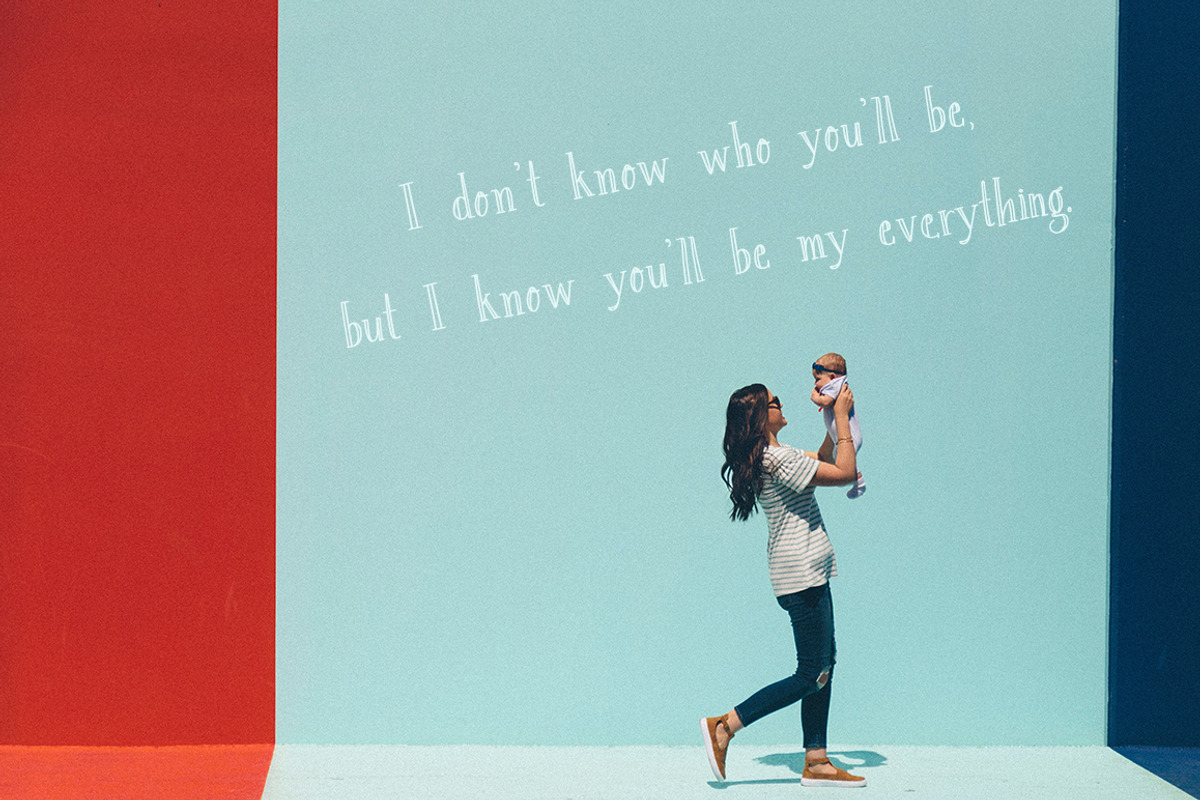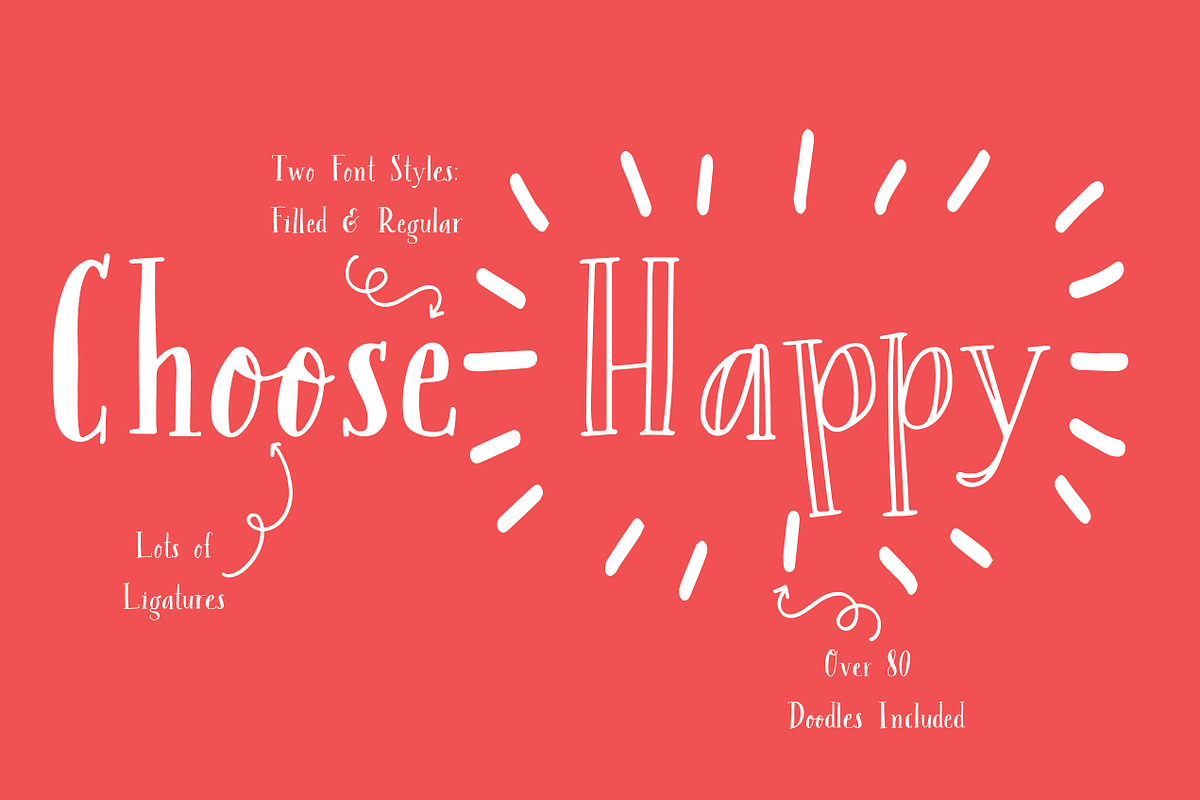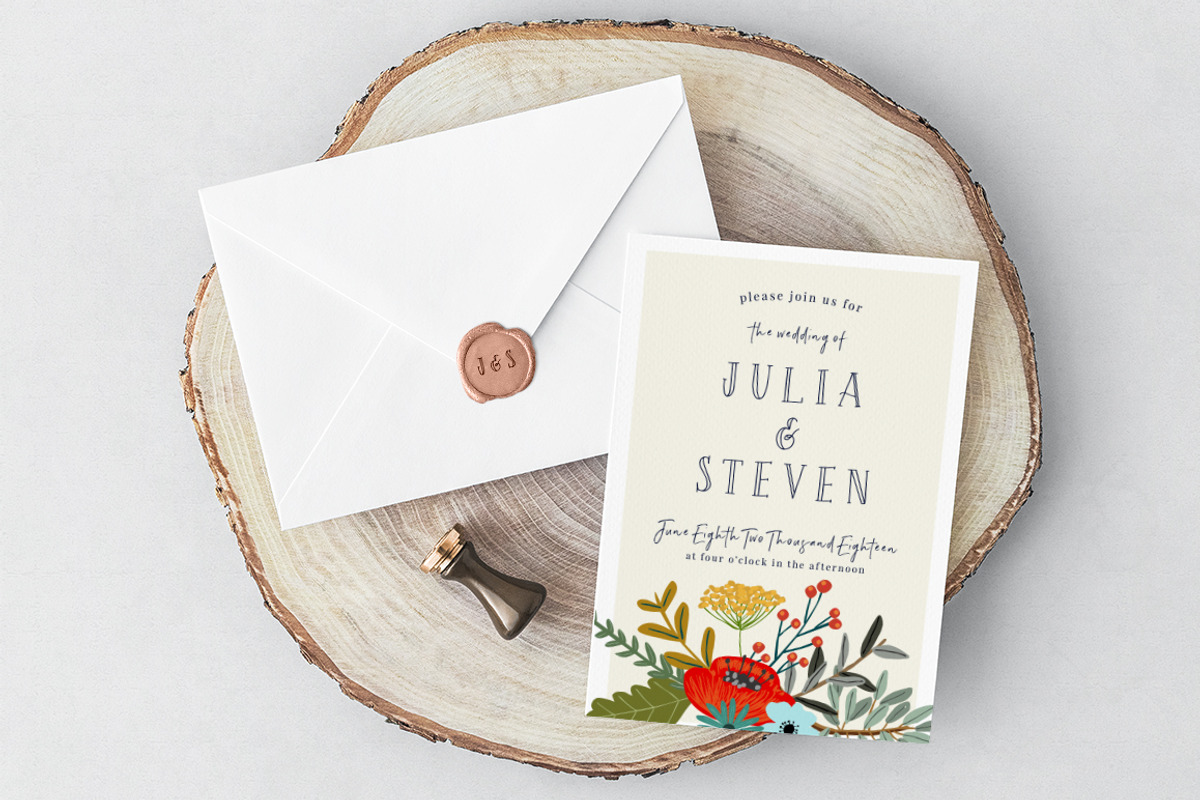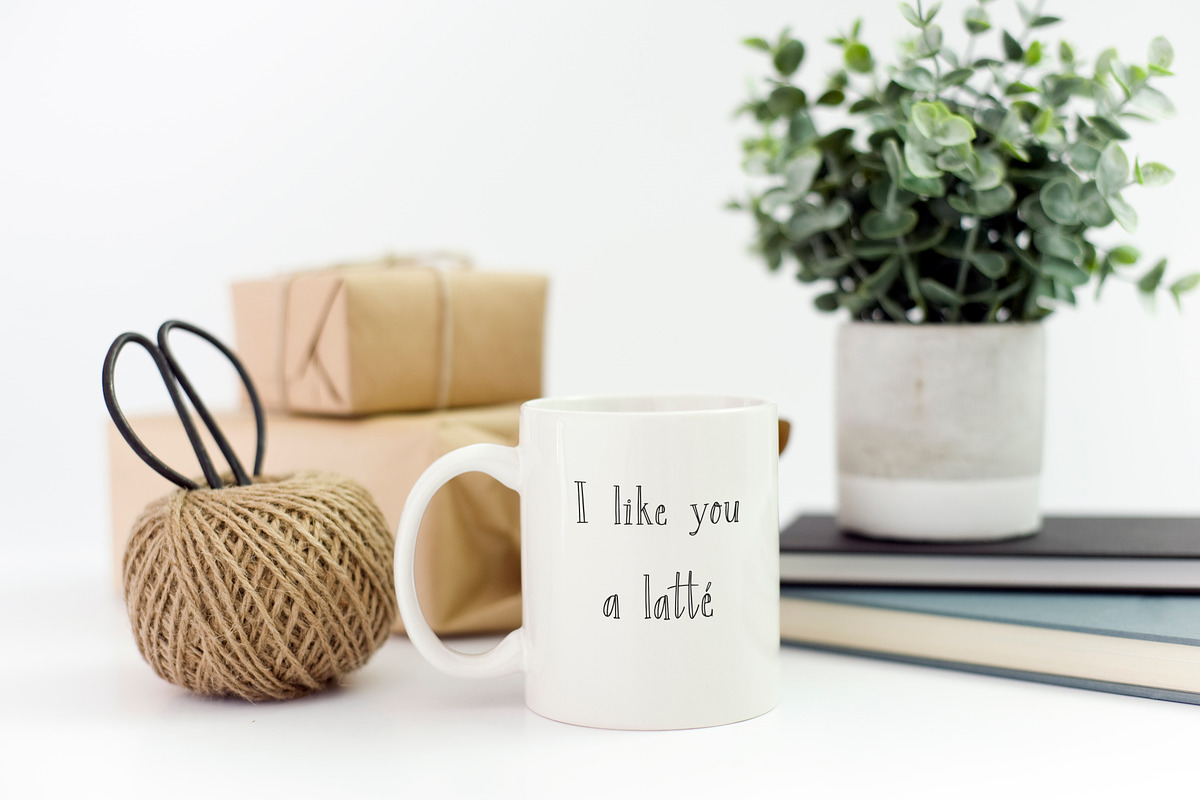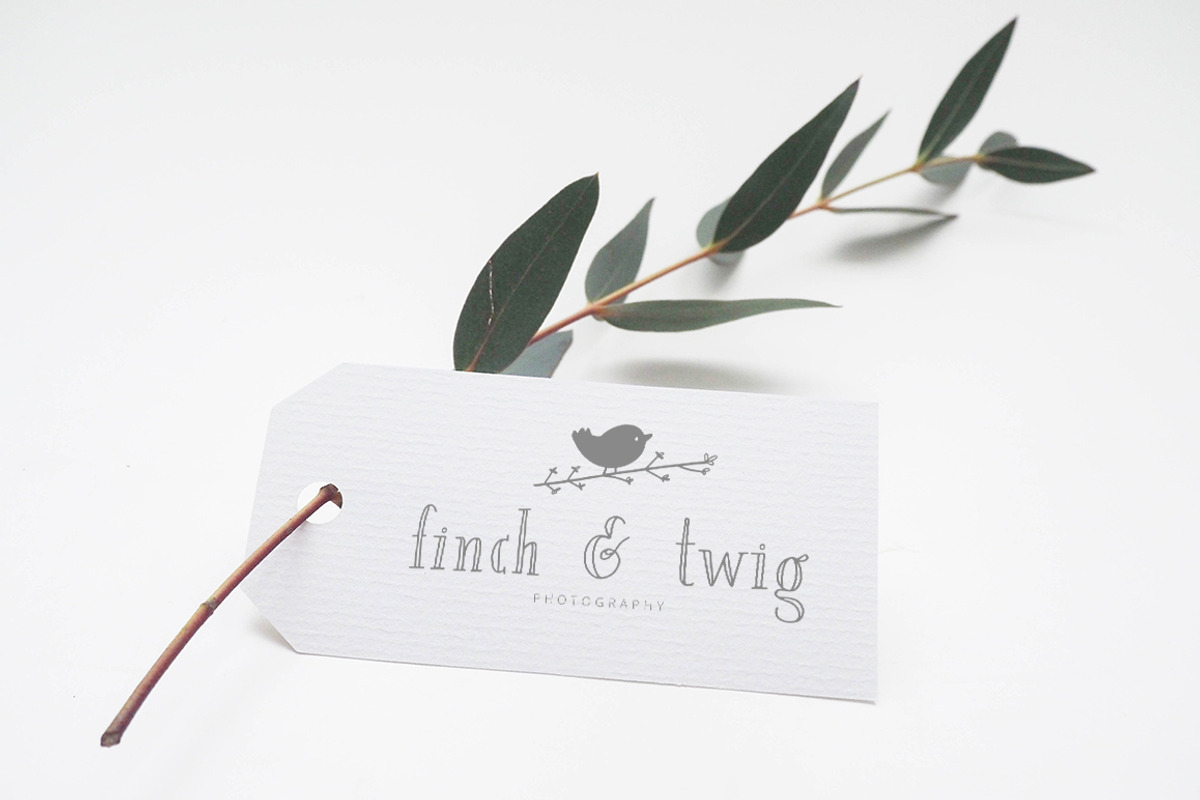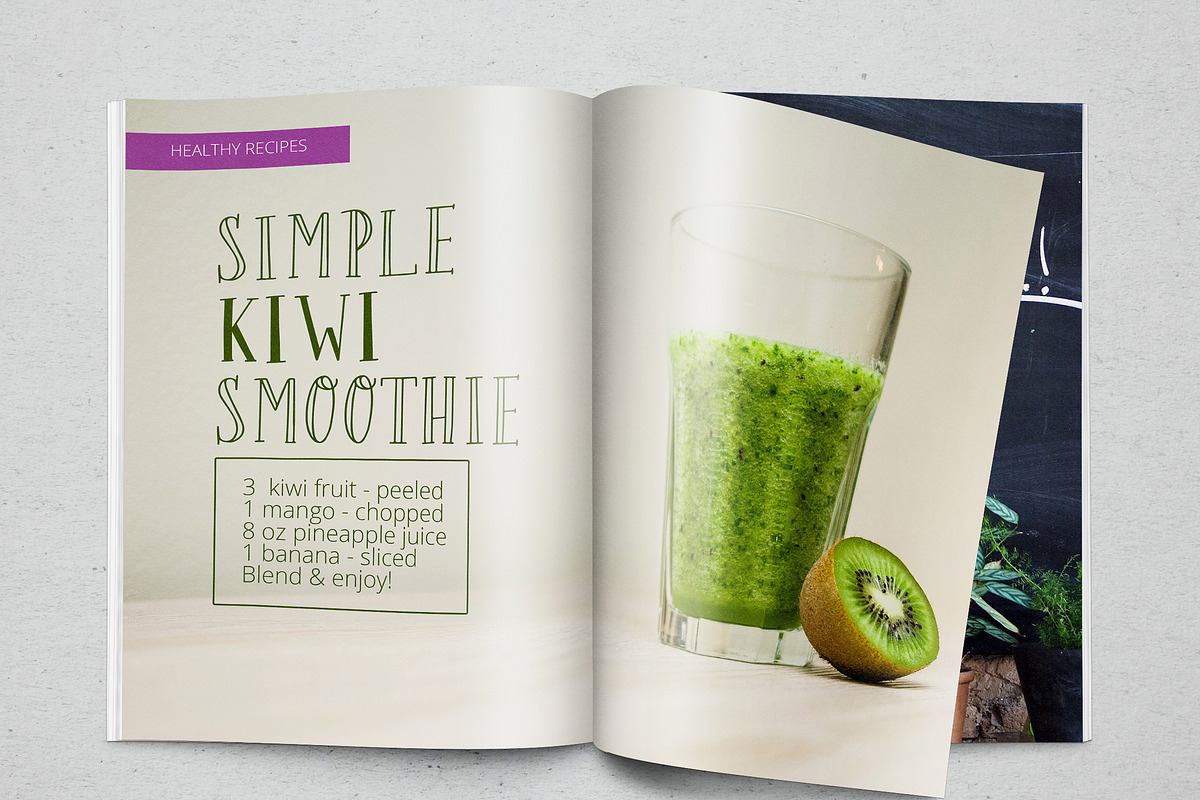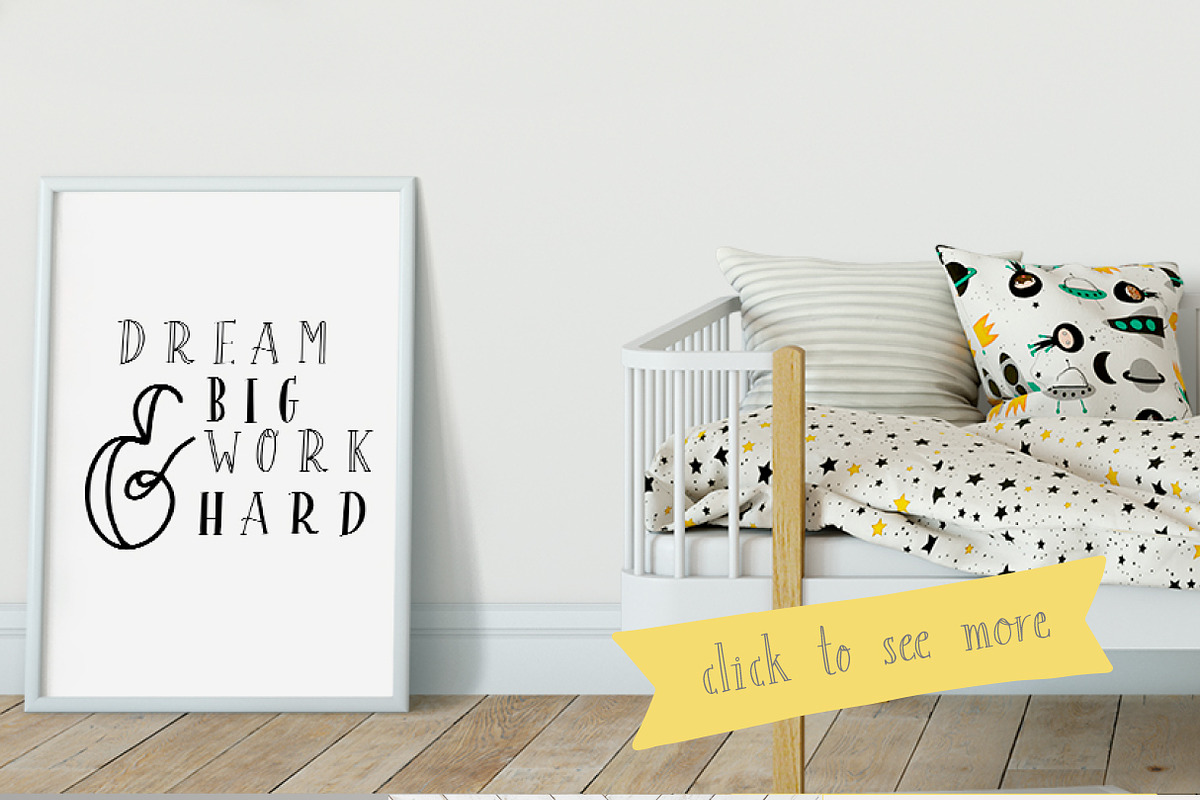
Margalo Font + Extras
Meet Margalo! A lively hand lettered serif font bursting with charm.
Ready for anything, this font works well for invitations, logos, posters, packaging, print and more. Margalo is extra special, with two styles for versatility: a fun out-lined version and a filled version. The font also features standard ligatures that gives your type the subtle variations you'd find in authentic hand lettering.
OpenType features: lots of standard ligatures
Over 80 hand-drawn doodles to embellish any project
- Outlined hand lettered serif
- Solid hand lettered serif
- Over 80 typeable line art doodles, swashes, and more!